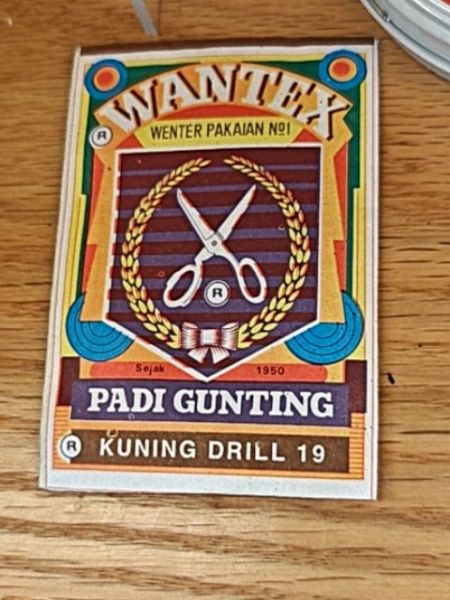
Wantex
Textile and fabric product used for sewing or fashion purposes.
1950
The typography features a bold, serif font for the brand name 'WANTEX', giving it an authoritative and classic feel. The supporting text uses a compact, sans-serif font that enhances readability and contrasts with the ornate main title.
The packaging features a vibrant and bold color scheme with prominent red, gold, and blue accents. It displays a distinctive emblem of scissors encircled by a golden wreath, highlighting its sewing-related function.
- The packaging prominently features an emblem with scissors.
- It is marketed as a 'No. 1' clothing-related product.
- The product has been in existence since 1950.